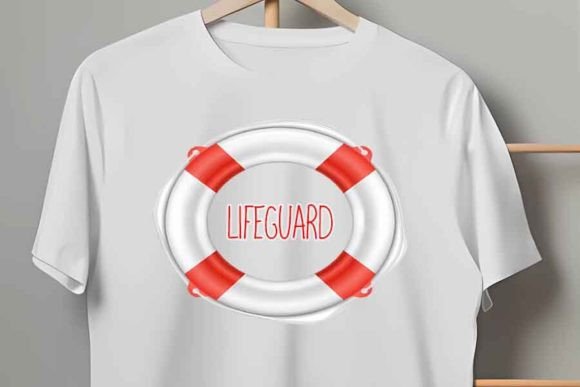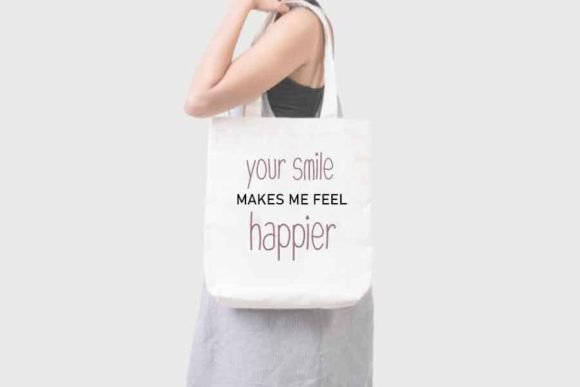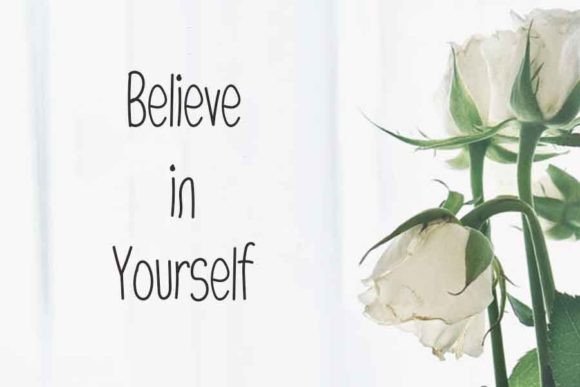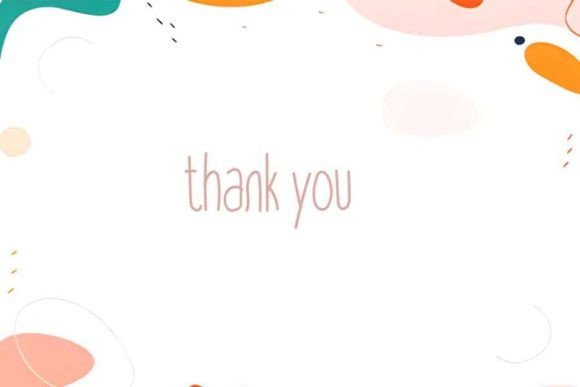
Discover the Perfect Cup of Design with Coffee Beans Font
Have you ever sat at your desk, staring at a blank screen, trying to conjure up the perfect design idea? You’ve got a concept, but something’s missing – that extra oomph to make it truly special. That’s where Coffee Beans Font comes in, a delightful handwritten font that’s guaranteed to give your designs a warm and inviting touch.
Whether you’re a seasoned designer or just starting out, Coffee Beans Font is a valuable addition to your toolkit. Its unique charm and friendly vibe make it perfect for creating eye-catching graphics, logos, and typography that will leave a lasting impression. With Coffee Beans Font, you’ll be able to turn any design idea into a true standout, and we can’t wait to see what you create!
Coffee Beans Font Key Features
- Font Family: Coffee Beans
- Unique Characteristics: Unique coffee bean-inspired design elements, including coffee beans, steam, and crema textures
Coffee Beans Font Review
As a designer, I was excited to dive into the “Coffee Beans Font” and see what it had to offer. Here are my honest thoughts:
- The font has a unique and playful feel to it, perfect for coffee shops or food-related branding.
- The font is highly customizable, with various weights and styles to choose from.
- The font is well-suited for headings and titles, making it a great choice for marketing materials.
- The font may not be ideal for body text, as it can be a bit too playful and distracting.
- The font may not be as versatile as other fonts on the market, making it less suitable for a wide range of applications.
- The font could benefit from more language support, as it may not be available in as many languages as other fonts.
Overall, I think the “Coffee Beans Font” is a solid choice for designers looking for a unique and playful font for their coffee shop or food-related branding. However, it may not be the best choice for every project, and designers should carefully consider its limitations before using it.
Coffee Beans Font Practical Application Guide
The Coffee Beans Font is perfect for:
- Beverage-related businesses (coffee shops, cafes, etc.)
- Food-related businesses (restaurants, bakeries, etc.)
- Design projects that require a playful, whimsical touch
- Choose a bright and bold color scheme to match the font’s playful vibe.
- Use the font for headings and main menu items to create a clear hierarchy.
- Add illustrations of coffee beans, cups, or other coffee-related elements to enhance the theme.
- Use a sans-serif font for body text to provide contrast and make the menu easy to read.
- Add a subtle texture or pattern to the background to give it a coffee shop feel.
- Use the font for headings and main text to create a bold and eye-catching look.
- Add graphics or illustrations of coffee cups, beans, or other coffee-related elements to enhance the theme.
- Experiment with different colors and backgrounds to match the brand’s identity.
- Use a consistent color scheme across all social media platforms to create brand recognition.
- Add a call-to-action (CTA) button to encourage followers to engage
Creative Project Ideas Using Coffee Beans Font
Project 1: Coffee Shop Menu Board
Create a unique and eye-catching menu board for a coffee shop using the Coffee Beans Font. This font is perfect for a coffee-themed business as it resembles coffee beans.
To use the Coffee Beans Font in this project:
Project 2: Social Media Graphics
Create engaging social media graphics for a coffee brand using the Coffee Beans Font. This font is perfect for creating attention-grabbing posts that stand out on social media.
To use the Coffee Beans Font in this project: